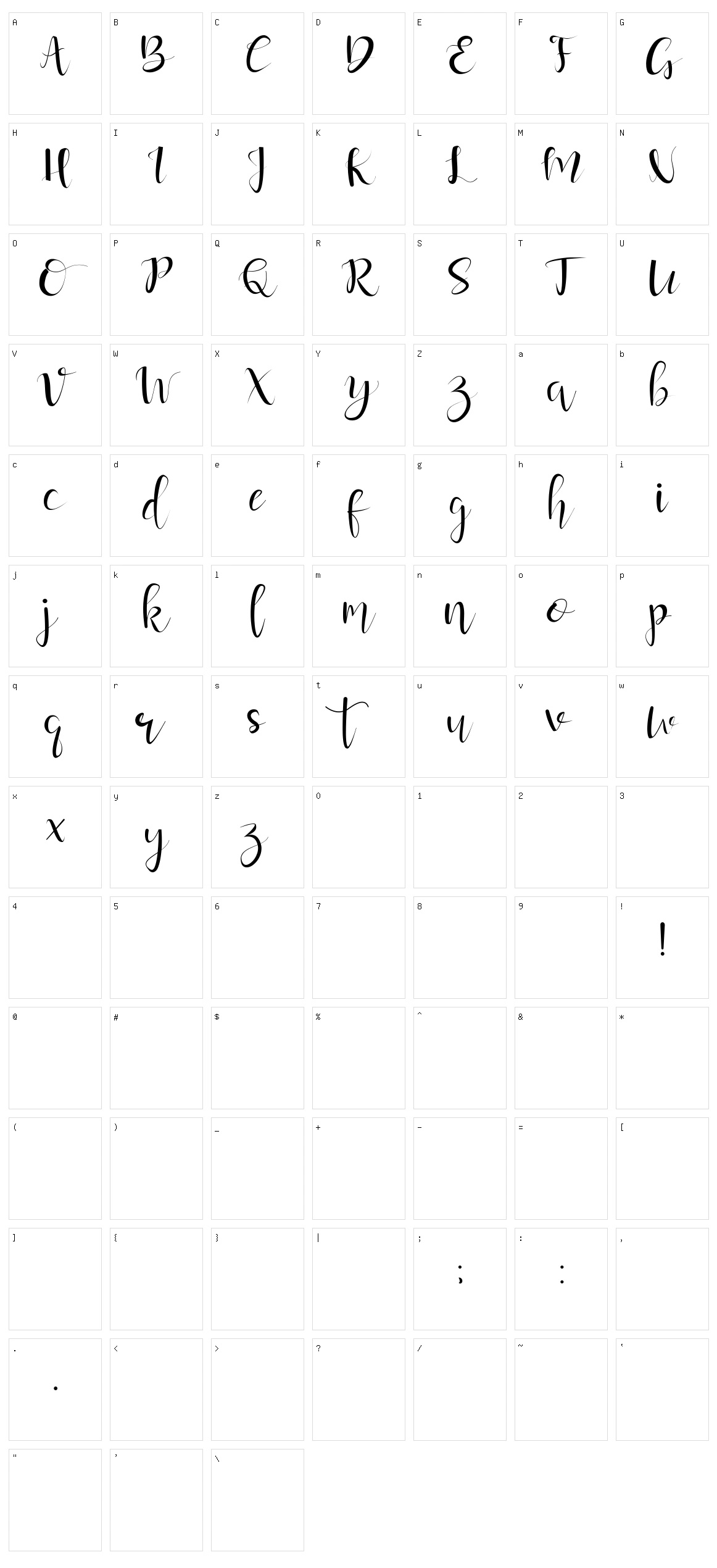
The free font Guardeloves is carefully designed by Mohamad Fahrul Anggoro, showcasing a thoughtful balance of creativity and usability and falls under the Script font style. When you download the ZIP file, it contains only 544.65 KB of font files, making it lightweight and quick to download. Please review the license details below to understand permitted usage and distribution rights. If license information is not available, we recommend using this font for personal projects only or contacting the author directly for commercial usage permissions.